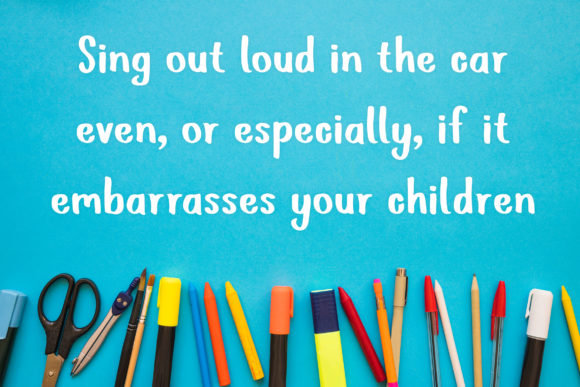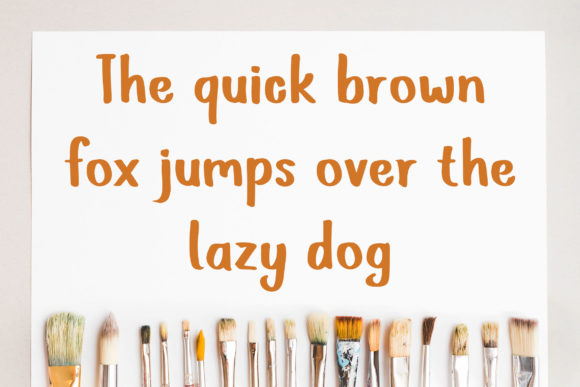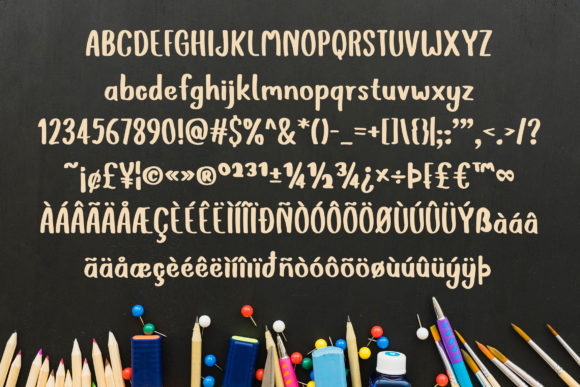
Pinkei Brush Font
About Pinkei Brush Font
Pinkei Brush is a timeless handwritten font. It looks incredibly endearing and authentic. Use this gorgeous and unique font to bring any DIY project to life!